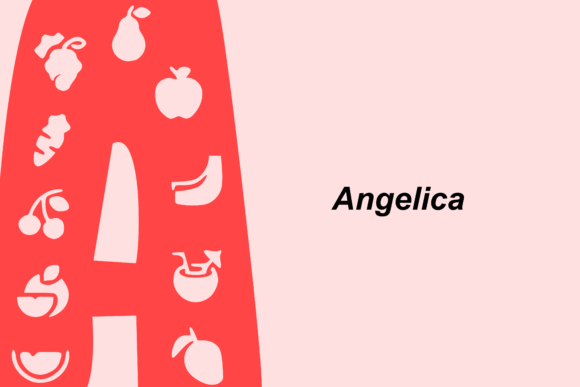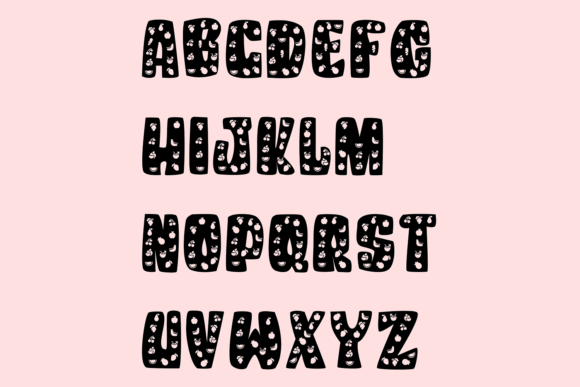
Fruit Font: The Sweetest Addition to Your Design Projects
Are you looking for a font that can add a touch of fun and playfulness to your design projects? Look no further than Fruit Font! This adorable display font is perfect for happy, fun design projects that require a fresh and cute look. In this article, we’ll explore the features of Fruit Font, its benefits, and how you can use it to take your designs to the next level.
What is Fruit Font?
Fruit Font is a display font designed to bring a sense of joy and playfulness to your designs. As described, it’s a cute font that’s perfect for happy, fun design projects. The font has a fresh, playful, and cute look that’s sure to capture the attention of your audience. Whether you’re working on a formal school project or an informal kid’s activity creation, Fruit Font is an excellent choice.
Key Features of Fruit Font
• Cute and Playful Design: Fruit Font has a unique and adorable design that’s sure to make your designs stand out.
• Fresh and Fun Look: The font has a fresh and fun look that’s perfect for designs that require a playful touch.
• Versatile: Fruit Font can be used for both formal and informal design projects, making it a versatile addition to your font collection.
• Easily Readable: Despite its playful design, Fruit Font is easily readable, making it perfect for designs that require a clear and concise message.
Benefits of Using Fruit Font
So, why should you use Fruit Font for your design projects? Here are some benefits of using this adorable font:
• Adds a Touch of Fun: Fruit Font can add a touch of fun and playfulness to your designs, making them more engaging and attention-grabbing.
• Perfect for Kid’s Designs: The font is perfect for kid’s activity creations, such as worksheets, posters, and flyers.
• Great for School Projects: Fruit Font can also be used for formal school projects, such as presentations, reports, and posters.
• Easy to Pair with Other Fonts: Fruit Font can be easily paired with other fonts to create a unique and visually appealing design.
How to Use Fruit Font in Your Designs
Using Fruit Font in your designs is easy! Here are some tips to get you started:
• Pair it with a Bold Font: Pair Fruit Font with a bold font to create a visually appealing contrast.
• Use it for Headings: Use Fruit Font for headings and titles to add a touch of fun and playfulness to your designs.
• Experiment with Colors: Experiment with different colors to find the perfect combination that matches your design.
• Keep it Simple: Don’t overdo it! Keep your design simple and clean to ensure that Fruit Font is the focal point.
If you’re a designer or crafter looking to use Fruit Font in your projects, here are some tips to keep in mind:
• Use it for Digital Designs: Fruit Font is perfect for digital designs, such as social media graphics, blog posts, and email newsletters.
• Print-Ready: The font is also print-ready, making it perfect for print designs, such as brochures, flyers, and posters.
• Scalable: Fruit Font is scalable, making it perfect for designs that require a large or small font size.
Font Name Fruit Font
Author Bold Point
In conclusion, Fruit Font is a sweet addition to any design project that requires a fresh, playful, and cute look. With its versatile design, easily readable text, and adorable font style, Fruit Font is perfect for both formal and informal design projects. Whether you’re a designer, crafter, or DIY enthusiast, Fruit Font is a great choice for adding a touch of fun and playfulness to your designs.